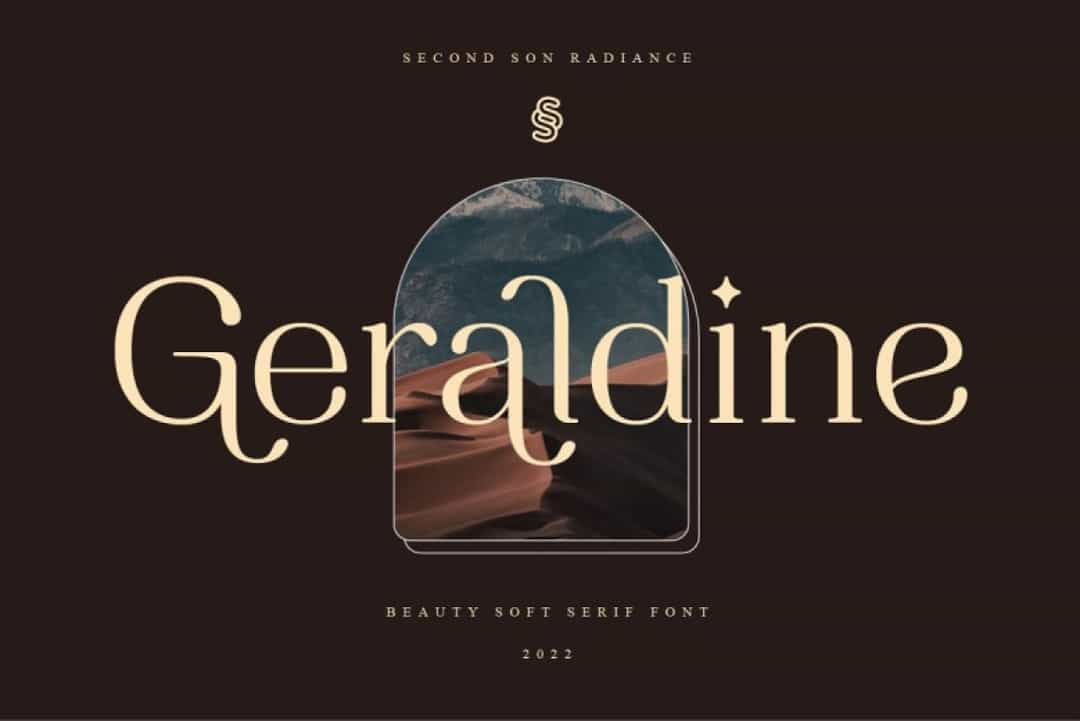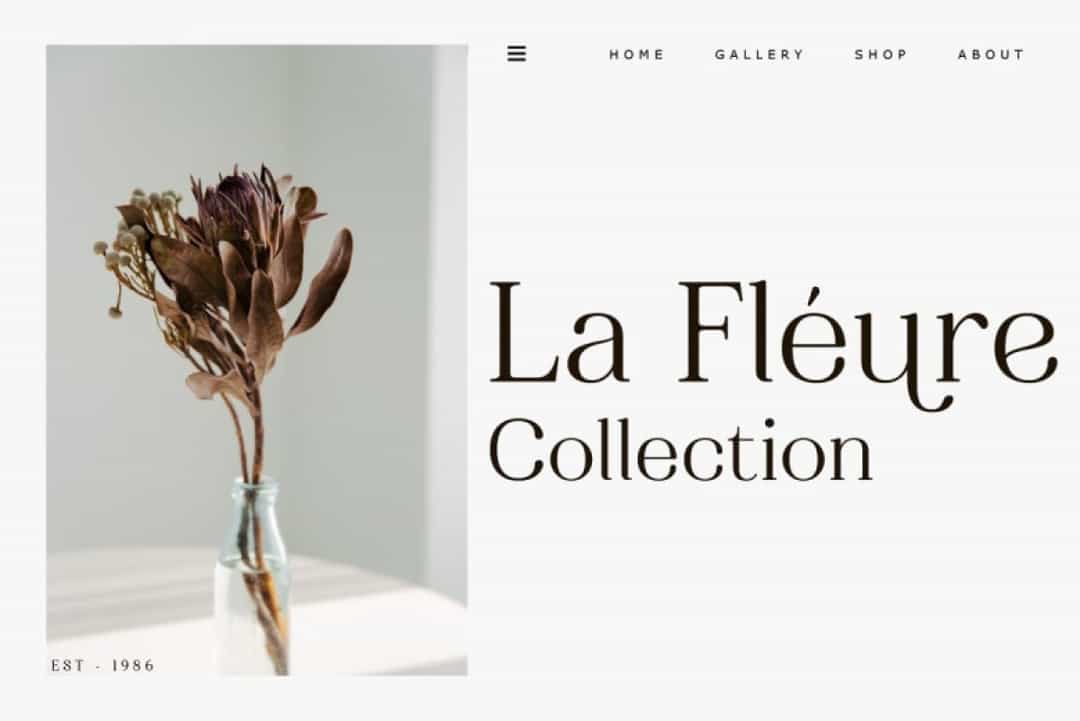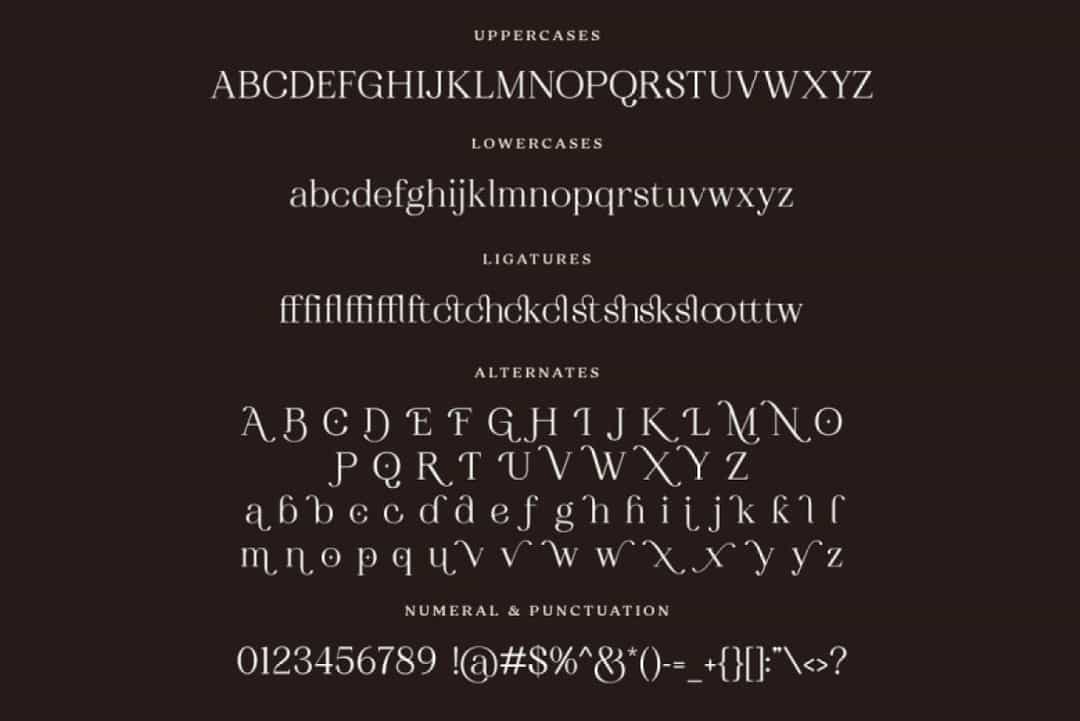
Geraldine font is a modern soft serif font featuring multiple alternatives to ligatures, fonts and multilingual support for editorial work such as logo design apparel branding product packaging magazine headers or as fashionable text overlays over any image background.